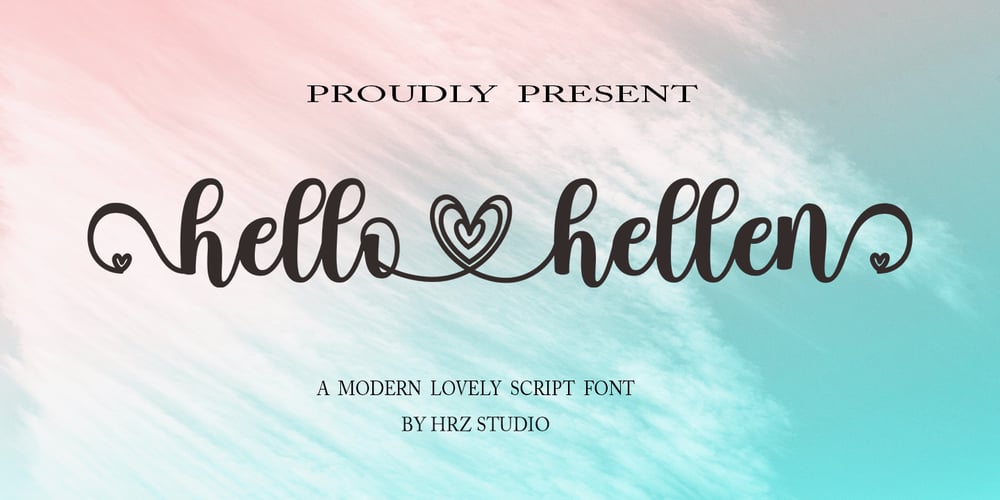
Hello Hellen Font Family was designed by Has Rizal and published by Hrz Studio. Hello Hellen contains 1 styles and family package options. Hello Hellen is a lovely and delicate script font that exudes elegance and class. This font was particularly crafted for those who need a beautiful and refreshing look to their designs. Hello Hellen Script is PUA encoded which means you can access all glyphs and swashes with ease!